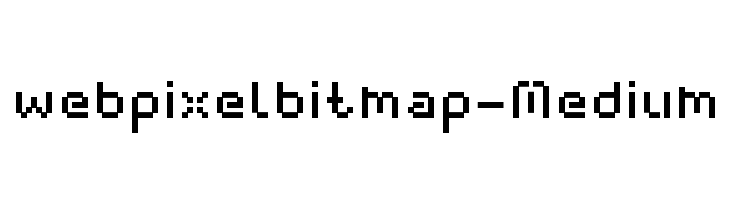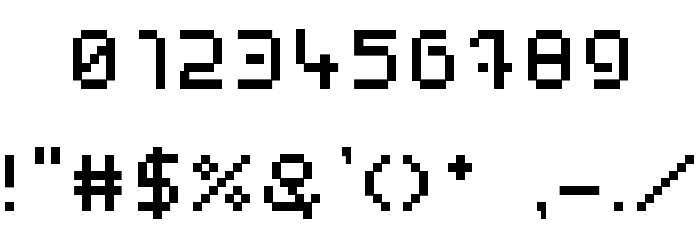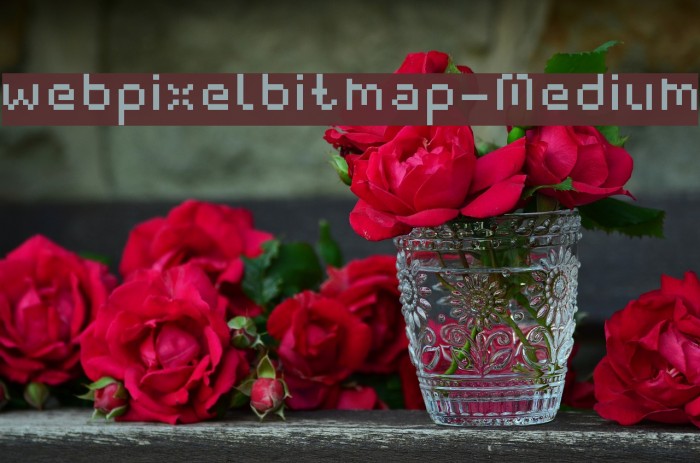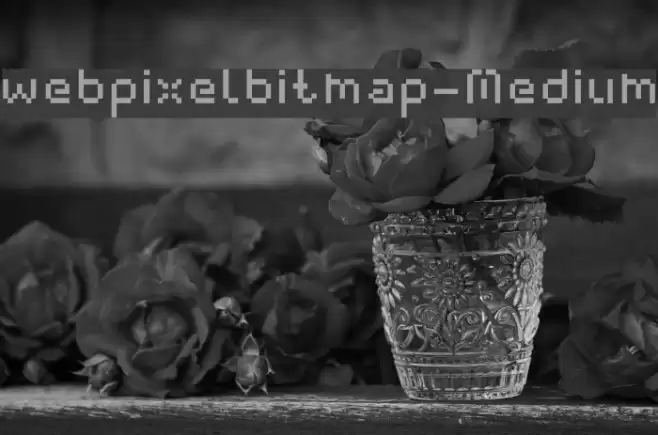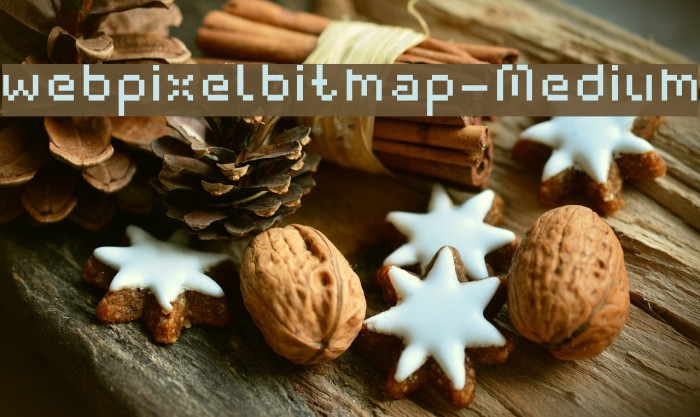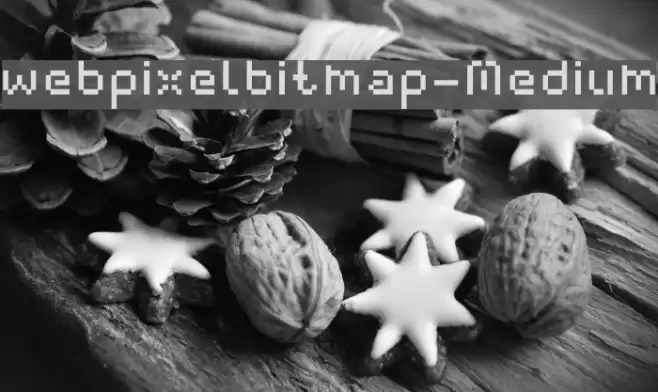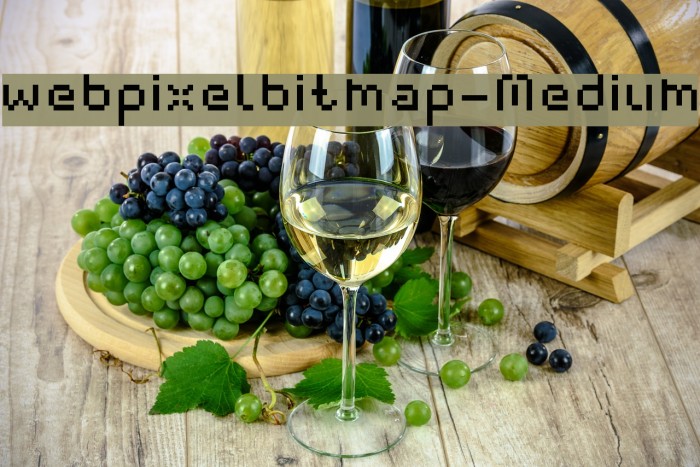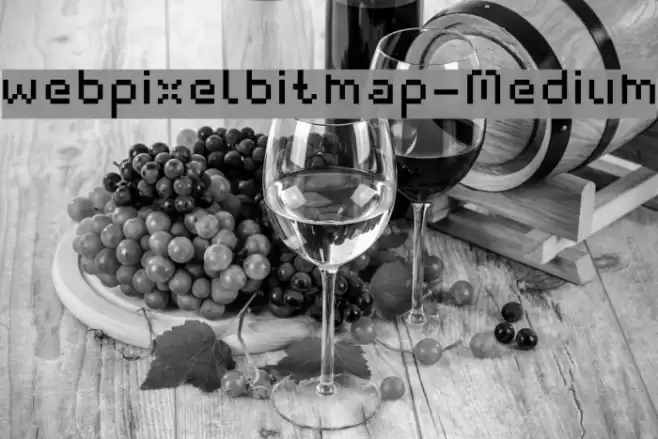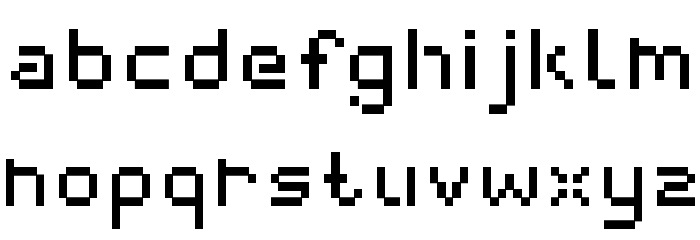
webpixelbitmap-Medium Font
webpixelbitmap-Medium Description
This font features a pixelated, bitmap style that is reminiscent of early digital displays and retro video games. Each character is composed of a grid of small squares, giving it a distinctly blocky and geometric appearance. The uniformity in stroke width across all characters contributes to a cohesive and consistent look. The uppercase and lowercase letters maintain a similar height, enhancing readability in both small and large sizes. Numbers and special characters are crafted with the same pixelated precision, ensuring a harmonious overall design. This font is ideal for projects that aim to evoke nostalgia or a digital aesthetic.
A pixelated, bitmap-style font with a retro digital feel from Uncategorized fonts.
- Proposed Projects: Ideal for retro video game designs, digital art projects, and nostalgic branding.
- Overall Style: Retro, Digital
- Use Case: Headlines, Logos, Digital displays